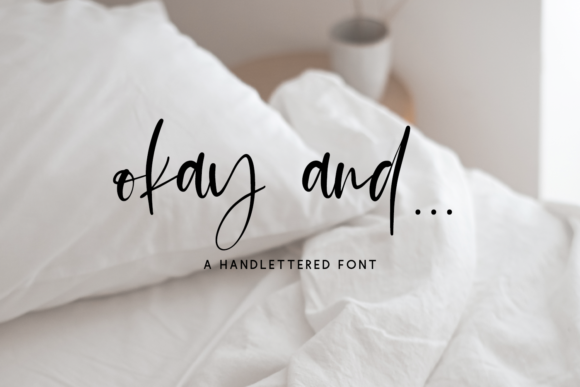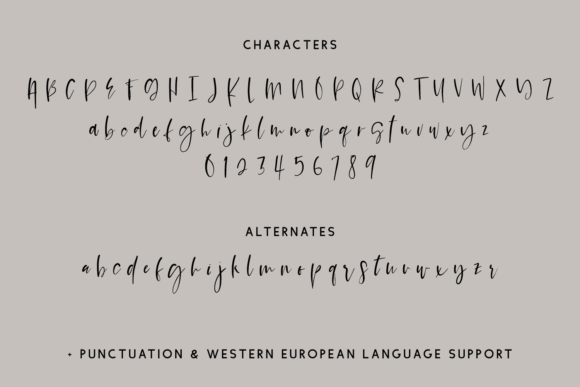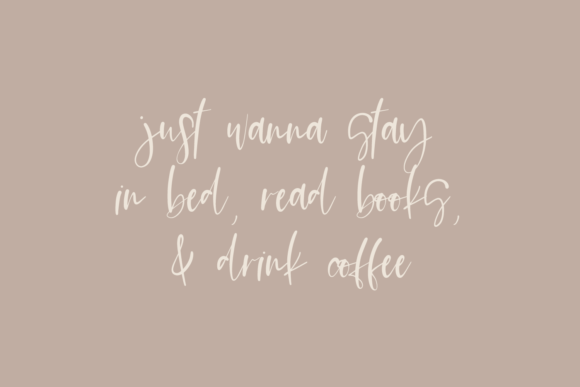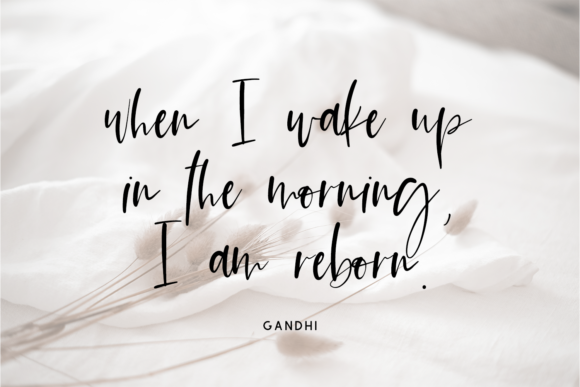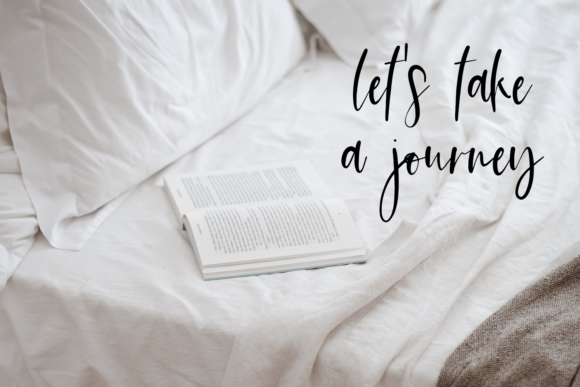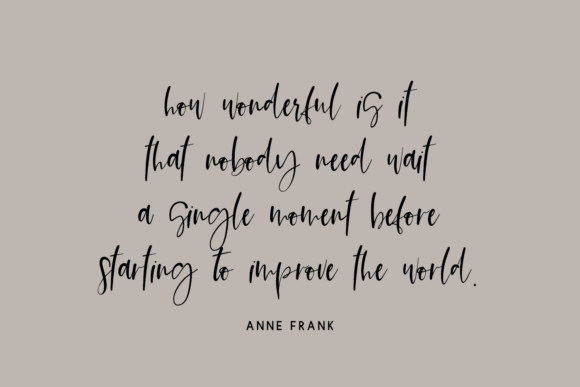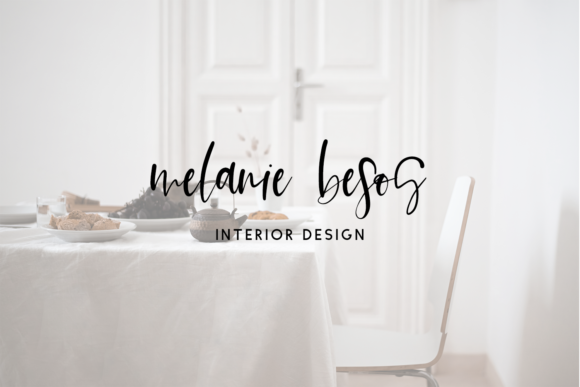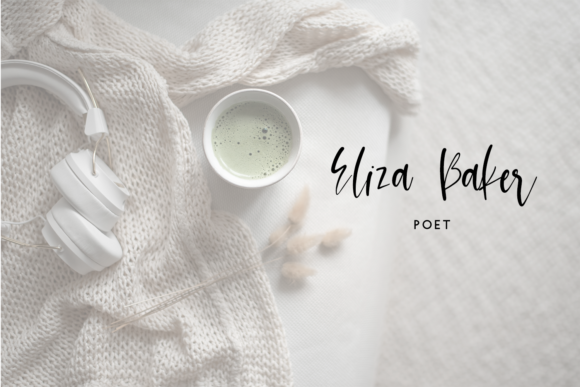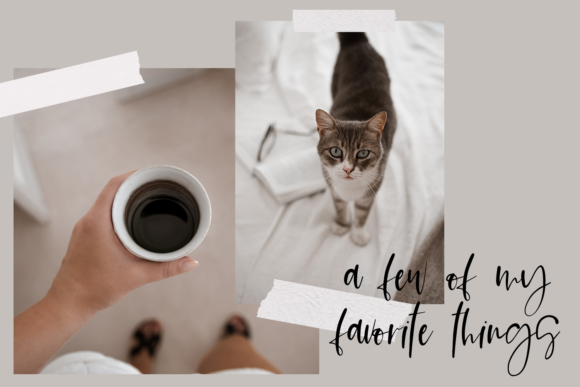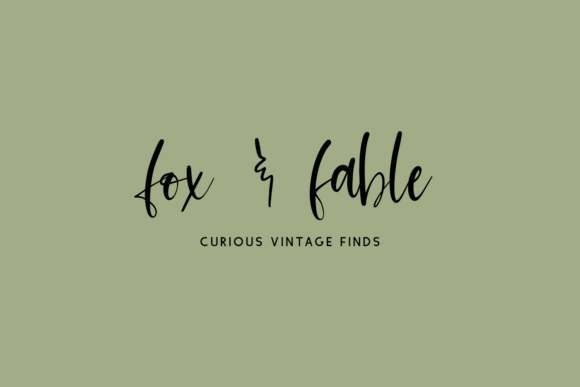
Okay and Font
About Okay and Font
Okay And is a modern signature script. It includes a full set of lowercase alternates to enhance the handwritten appeal. This script is best for: logos + branding for gender-neutral applications, website design + website accents – think design blogs and travel blogs. It’s also suitable for fashion blogs, & more, clean print design, like magazines + flyers, header elements that need handwritten touch, and quote graphics for social media.